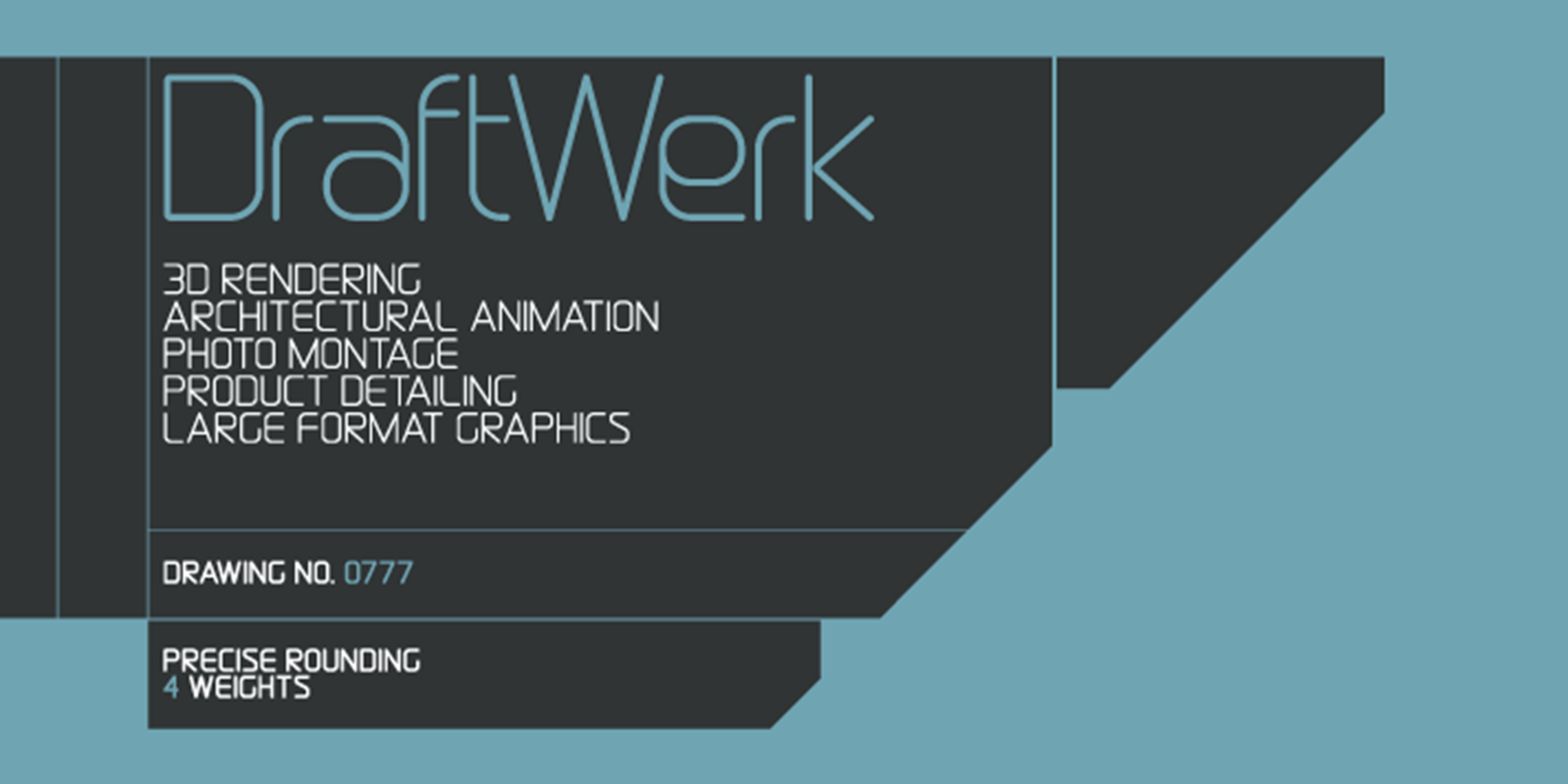
This architectural typeface excels in engineering firm branding, blueprint documentation, technical drawing layouts, construction company logos, architectural portfolio design, industrial manufacturing materials, precision instrument signage, and technical communications. Its blueprint-inspired character makes it perfect for projects requiring technical precision and engineering authenticity.
DraftWerk Font creates excitement through its technical precision that captures the meticulous craftsmanship of engineering design and architectural planning. The font's structured lines and blueprint-quality letterforms create an atmosphere of professional expertise that resonates with audiences seeking technical accuracy and engineering authenticity. Its precisely engineered character variations deliver drafting-table readability while maintaining distinctive technical personality that reflects the artistry of engineering design and the transformative power of precise technical communication and architectural excellence.
The DraftWerk Font family includes multiple engineering variations such as regular, light, bold, condensed, and blueprint styles. Each family member maintains the distinctive technical aesthetic while offering different levels of engineering sophistication for various architectural applications. This professional collection empowers designers to create precise compositions that celebrate the full spectrum of technical experiences from detailed specifications to grand architectural visions.